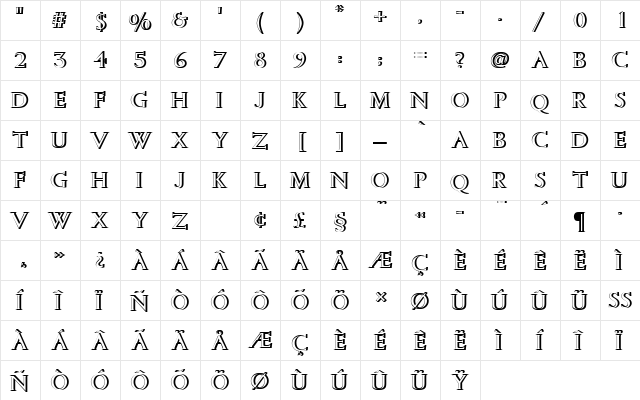
ColumnaSolDRe1 Regular Font Preview
ColumnaSolDRe1 Regular
Design Context for ColumnaSolDRe1 Typeface
ColumnaSolDRe1 is a composed and adaptable typeface that performs quietly and consistently across a wide range of design contexts.